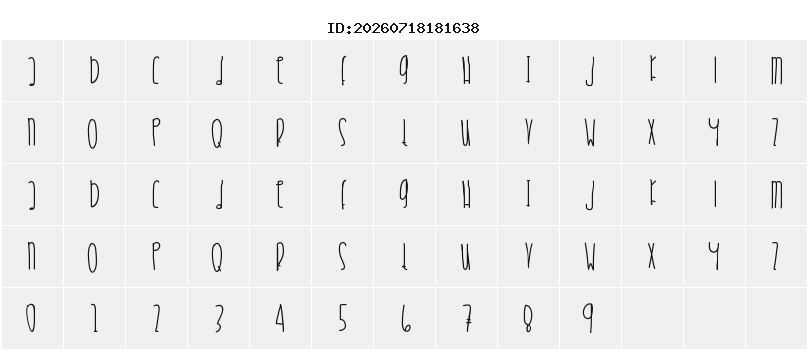
CrystalBluePersuasion Preview
• Font Name: CrystalBluePersuasion
• Full Font Name: CrystalBluePersuasion
• PostScript Name: CrystalBluePersuasion
About CrystalBluePersuasion.ttf
CrystalBluePersuasion.ttf is a modern, elegant sans-serif font designed for ultimate readability and visual harmony. Perfect for branding, headlines, web design, and print materials.